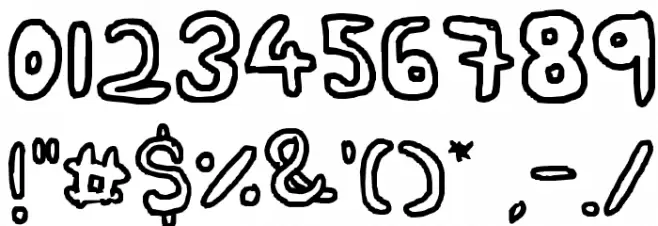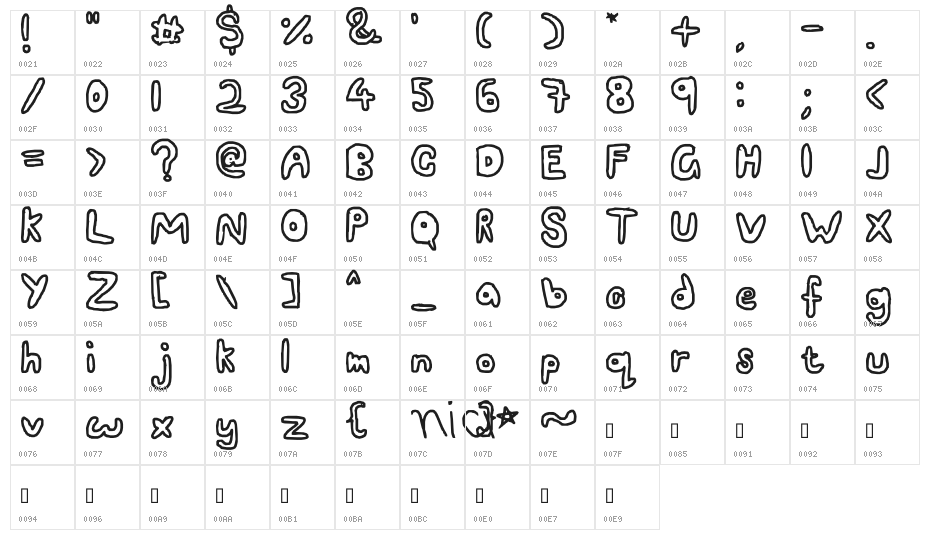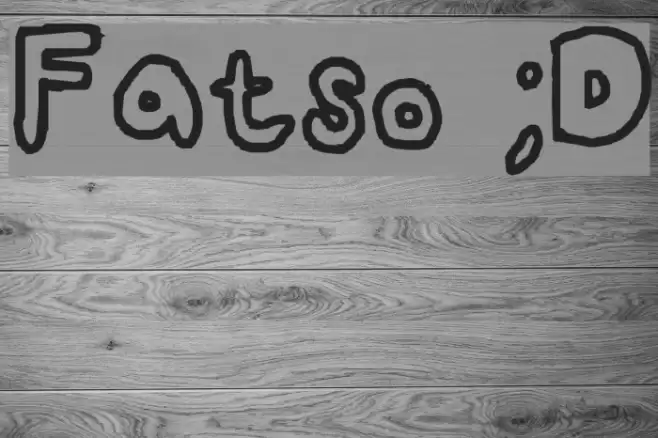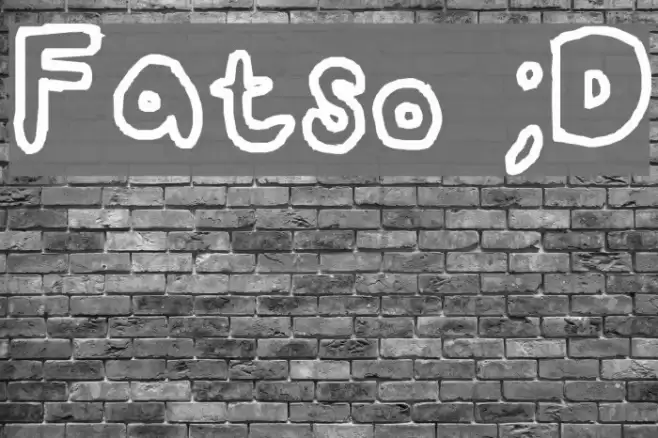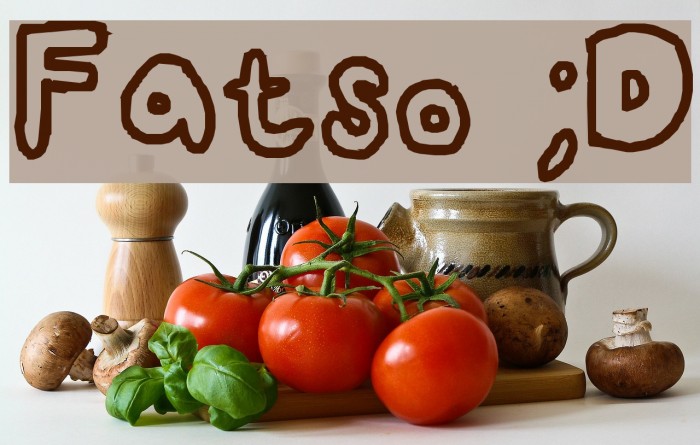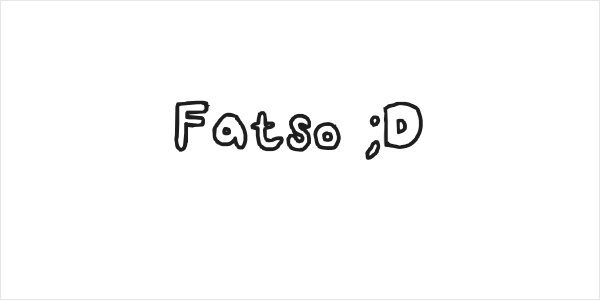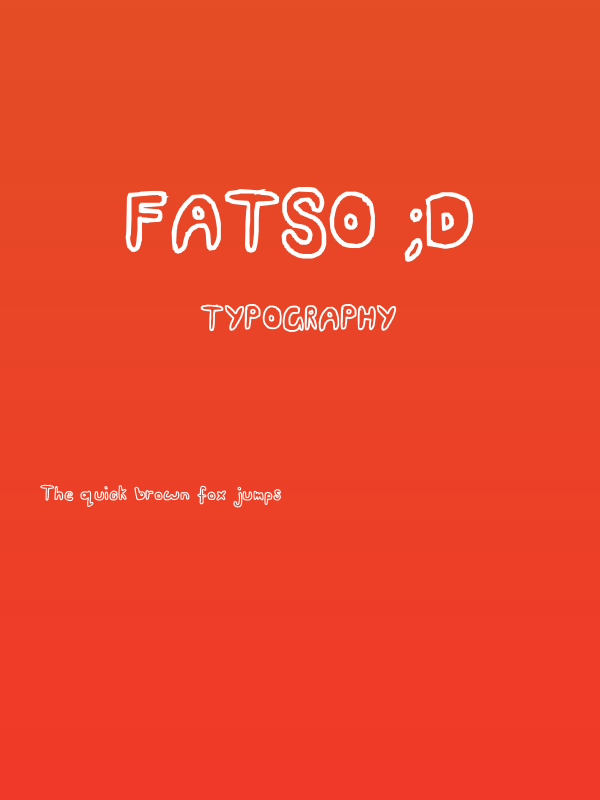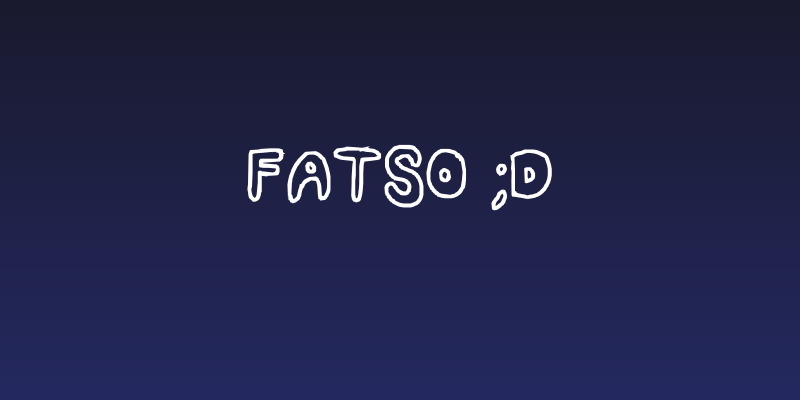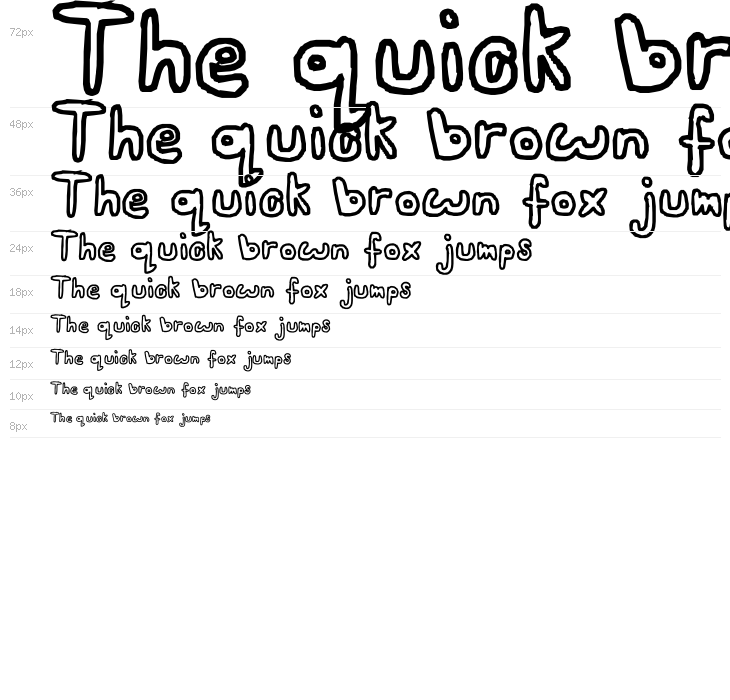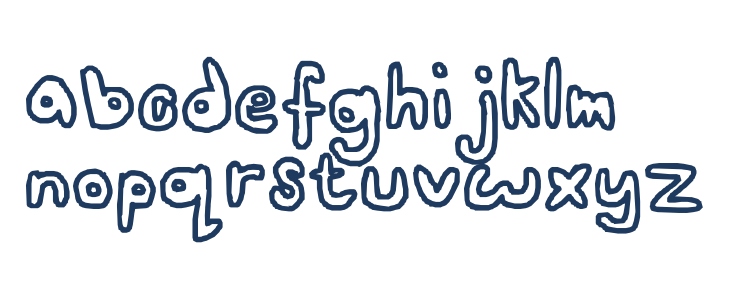
Fatso ;D Font
Fatso ;D Description
This playful and bold font features a hand-drawn, outlined style that gives it a whimsical and informal appearance. The characters are rounded and slightly irregular, adding to its charm and uniqueness. The uppercase and lowercase letters maintain a consistent style, with a thick outline that enhances readability. Numbers and special characters are designed with the same playful aesthetic, making this font versatile for various creative projects. Its distinctive look makes it ideal for designs that require a fun and engaging visual impact.
Overall StylePlayful, Whimsical
Proposed ProjectsIdeal for children's books, comic strips, playful branding, and creative posters.